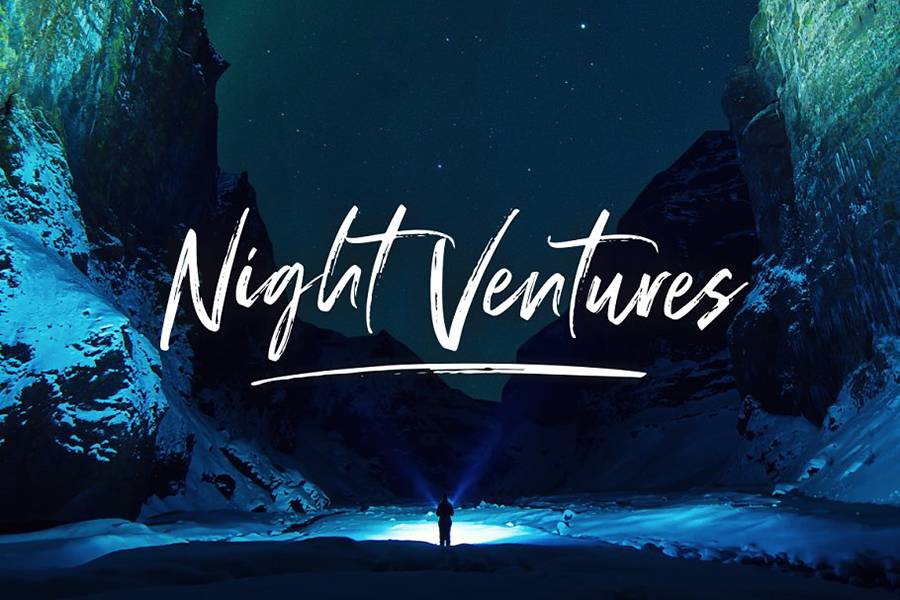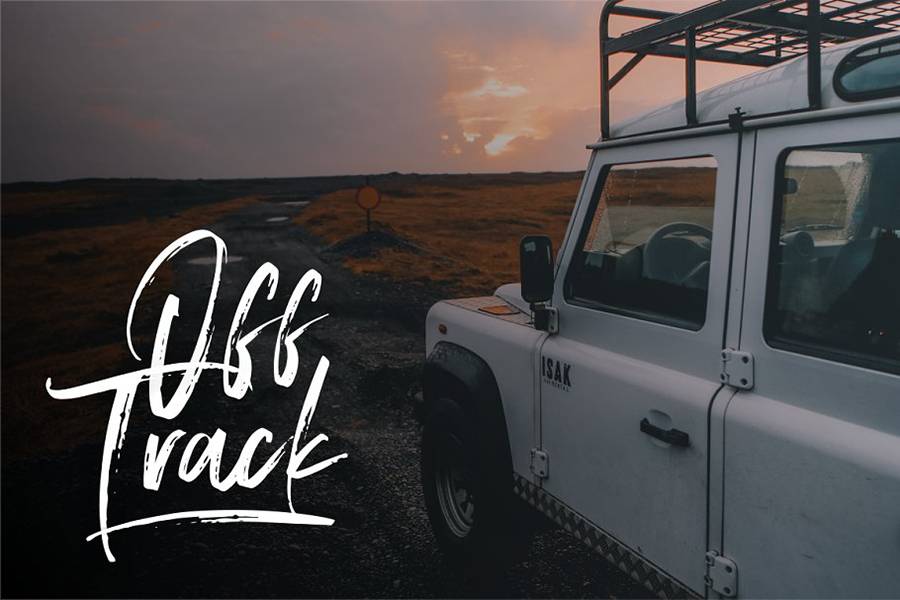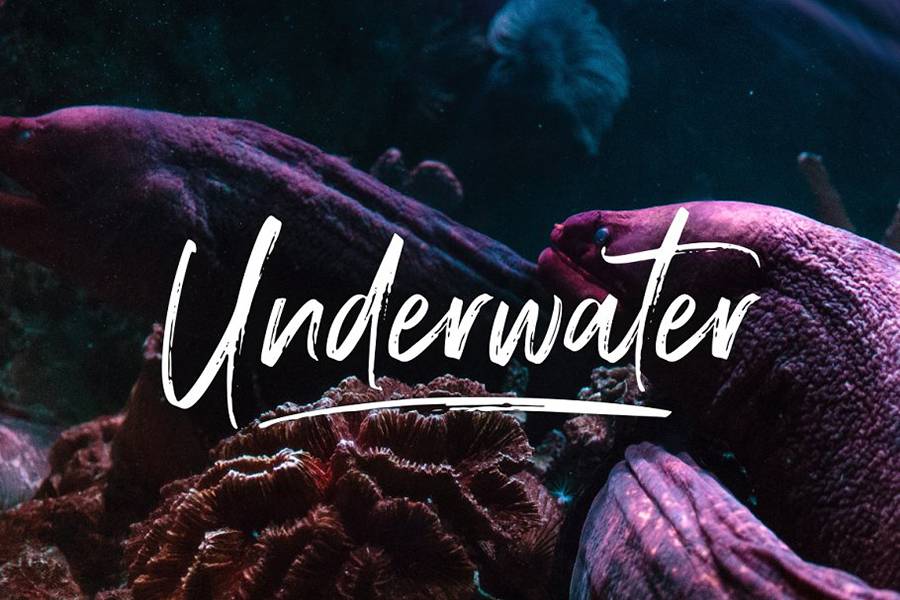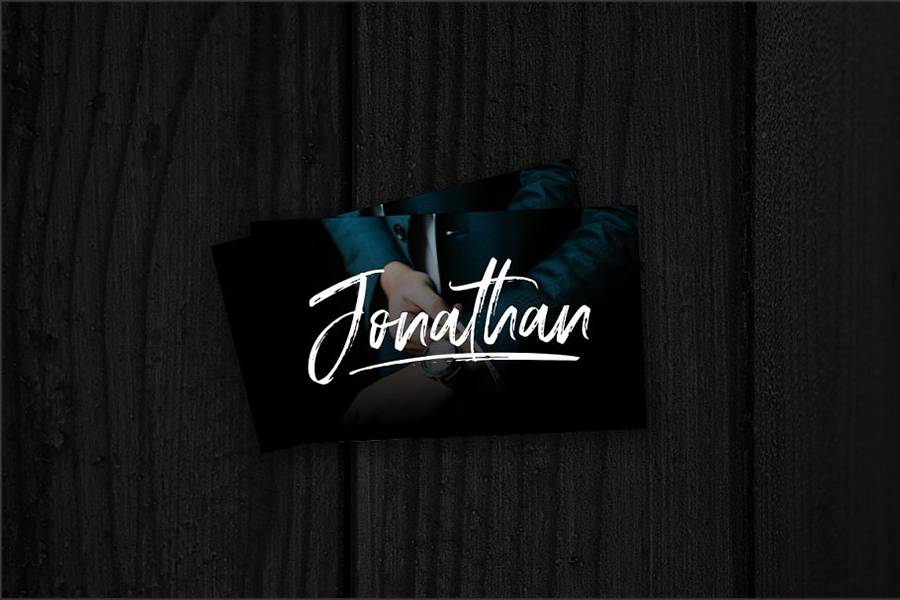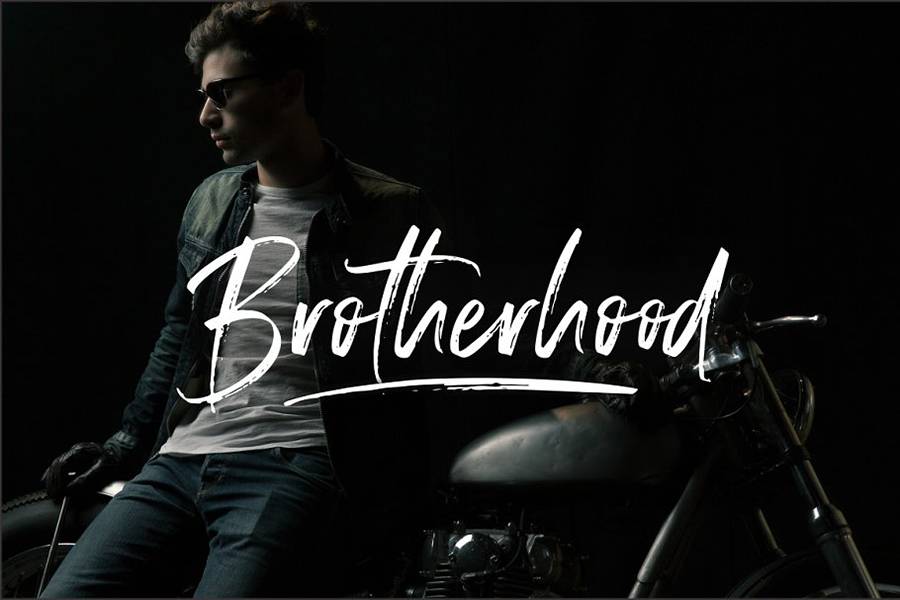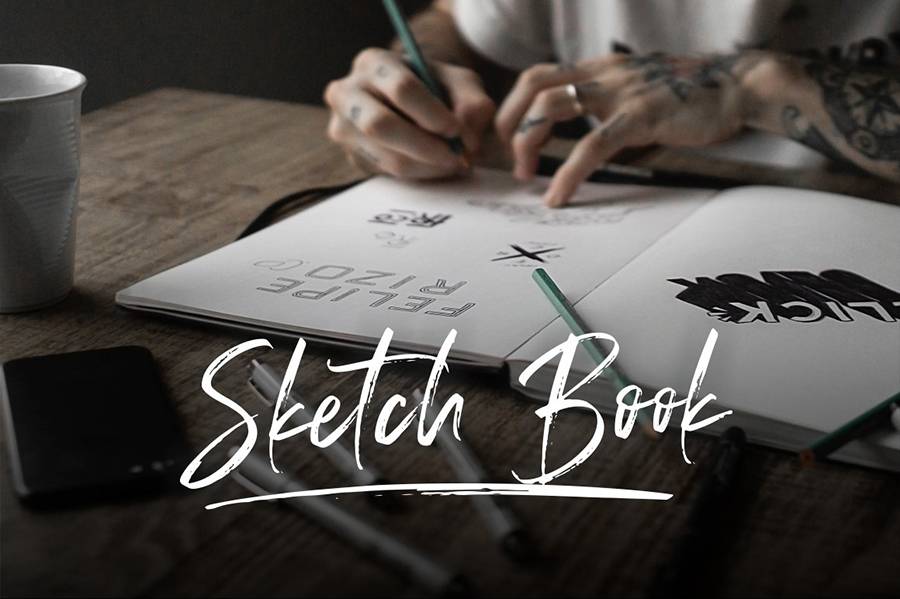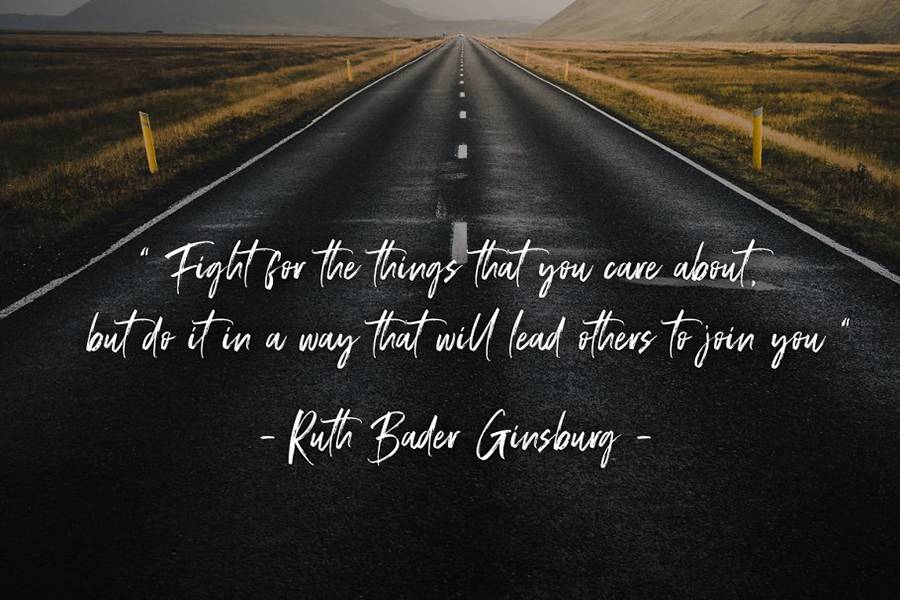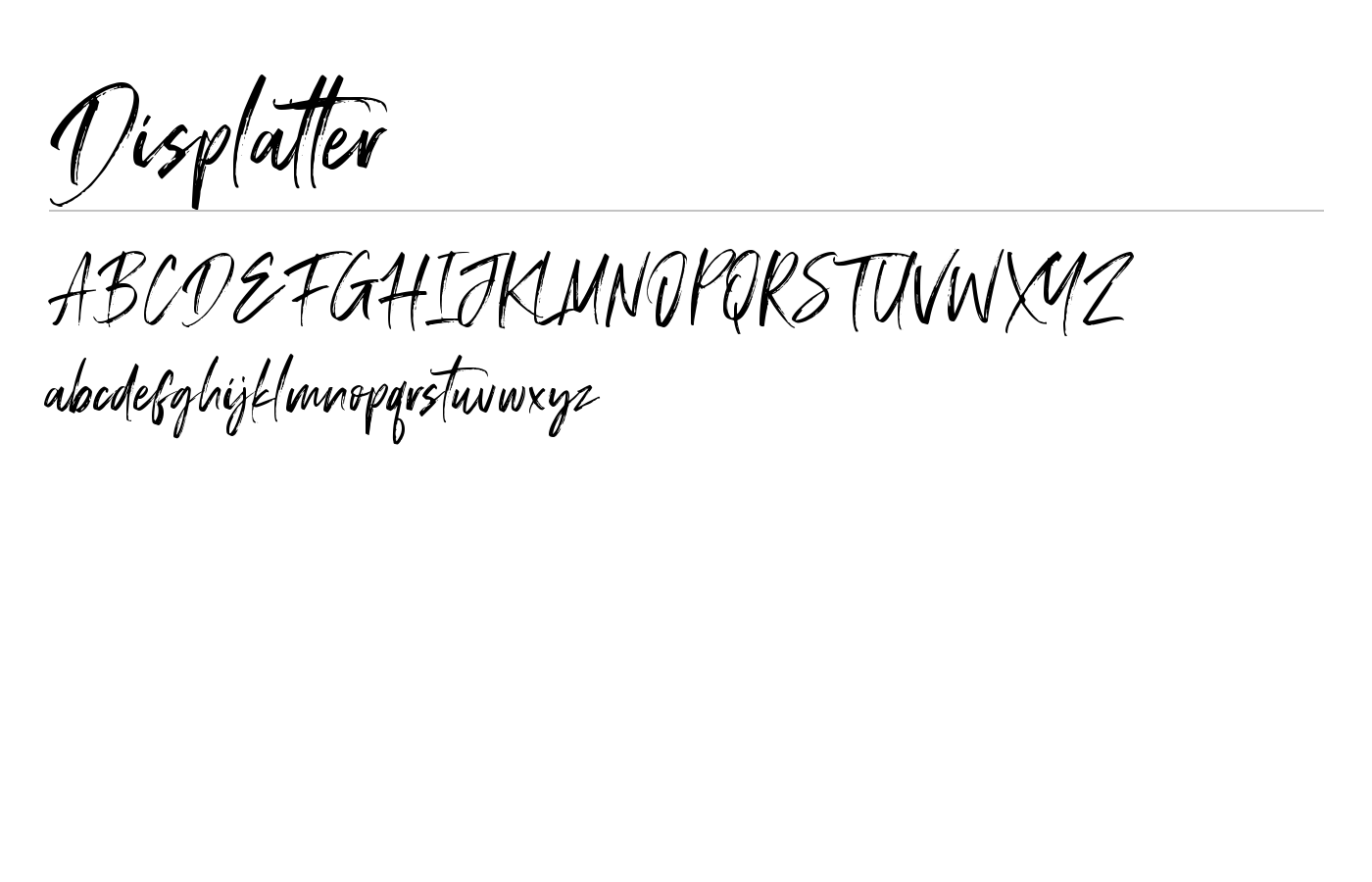
Displatter Handbrush Script is a lively and expressive brush script font characterized by its bold, textured strokes that mimic natural hand-painted calligraphy. With its slightly irregular letterforms and dynamic contrast in stroke width, it conveys a raw, artistic feel, making it perfect for creative branding, posters, and headlines where a personal, energetic touch is desired. This font works especially well in designs that want to project authenticity, creativity, and a handcrafted vibe.
Displatter Handbrush Script
About Displatter Handbrush Script
| Font family | Displatter Handbrush Script |
| Designer | Sronstudio |